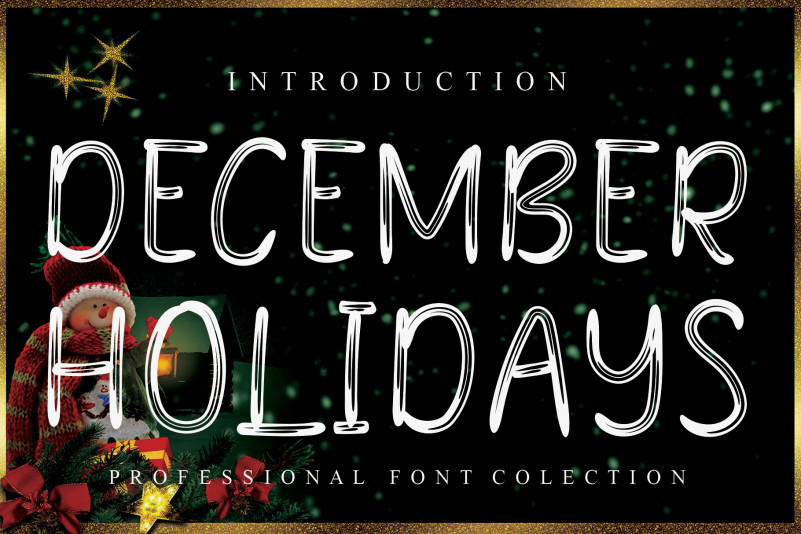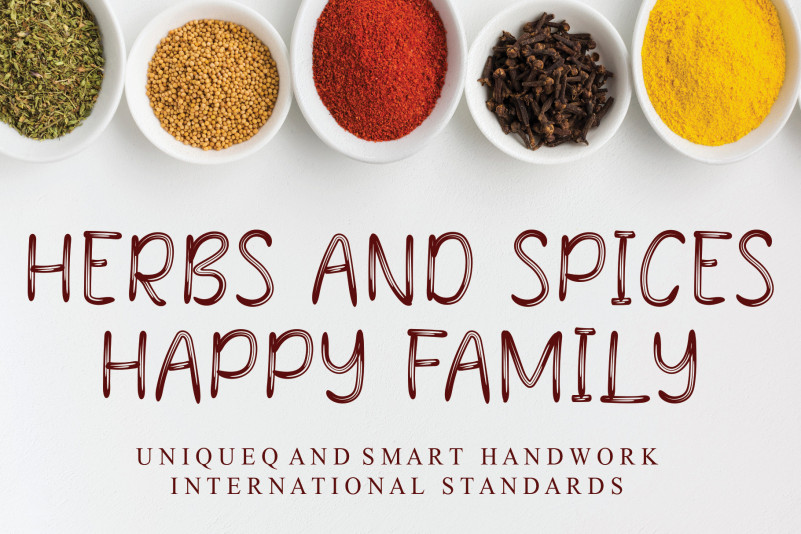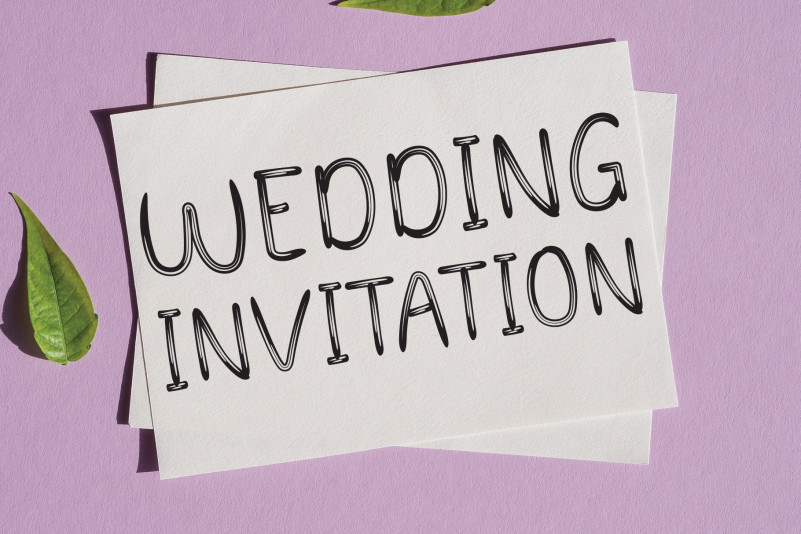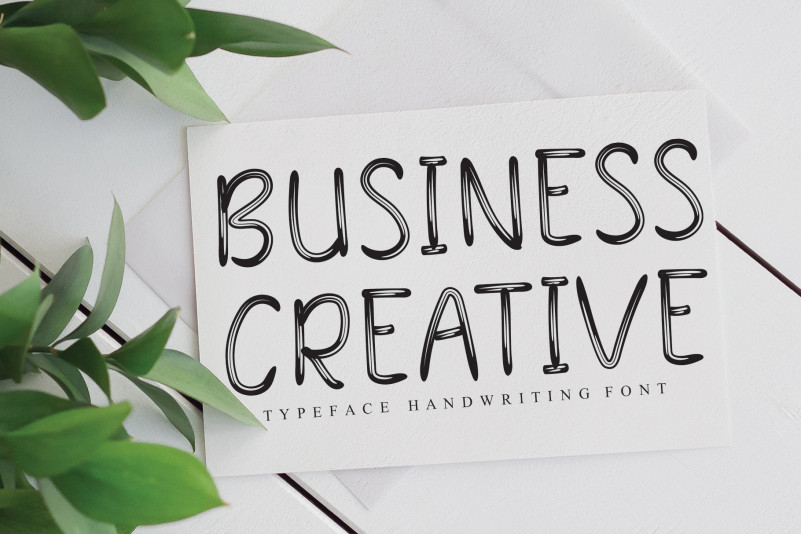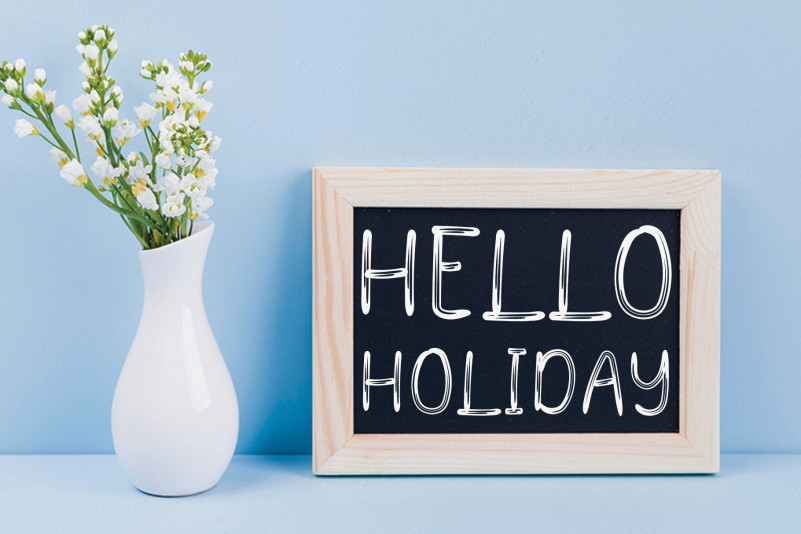
December Holidays Display Font
December Holidays Display Font is a sweet brushed handwritten font. It looks ideal on letters to Santa or any other card that needs a personalized touch.